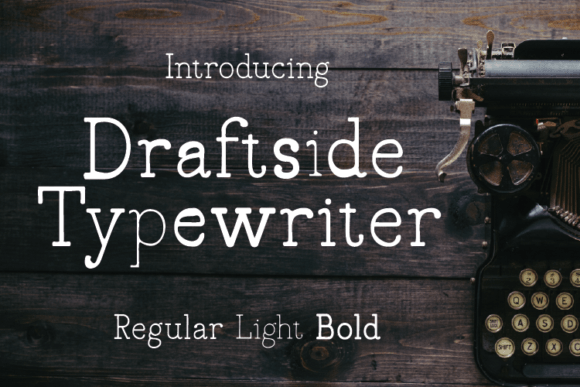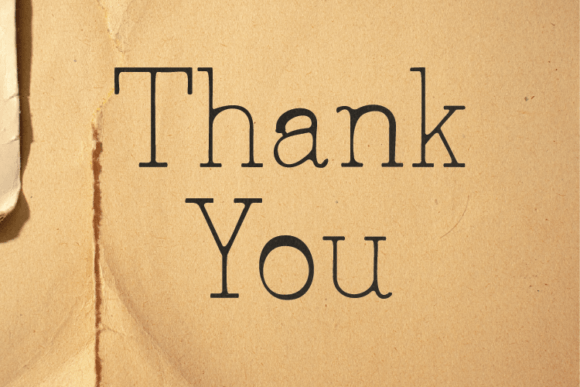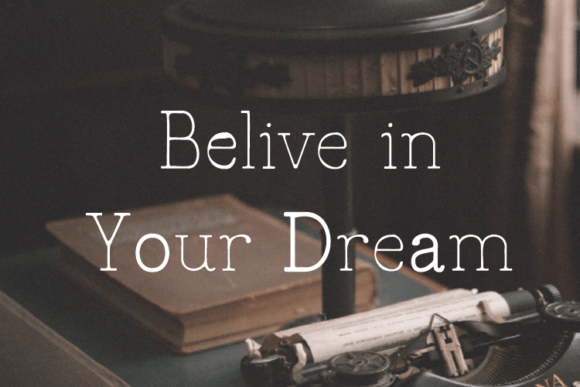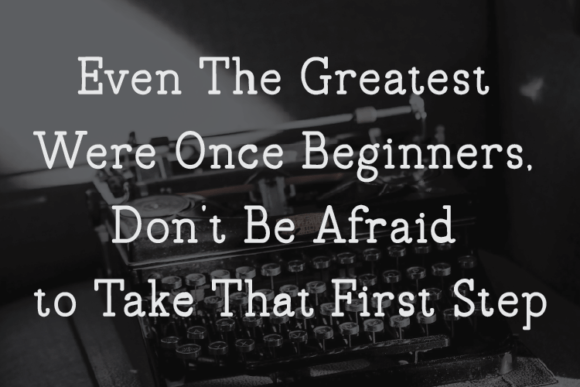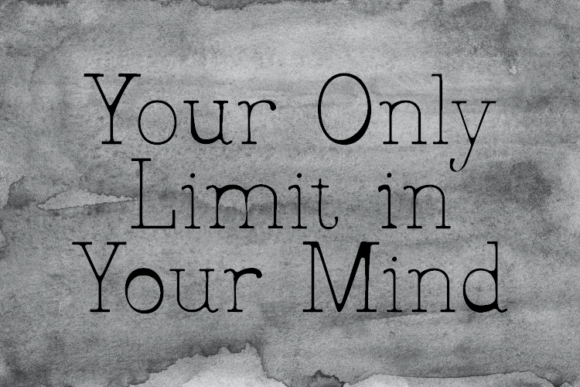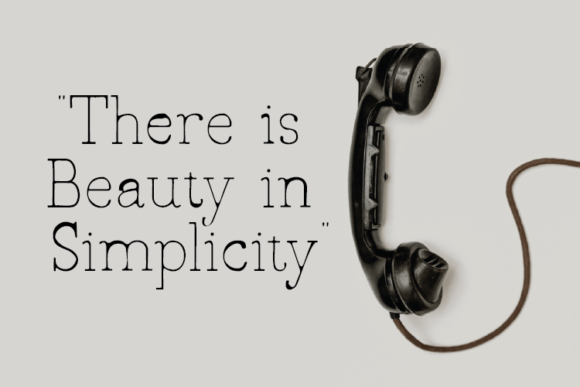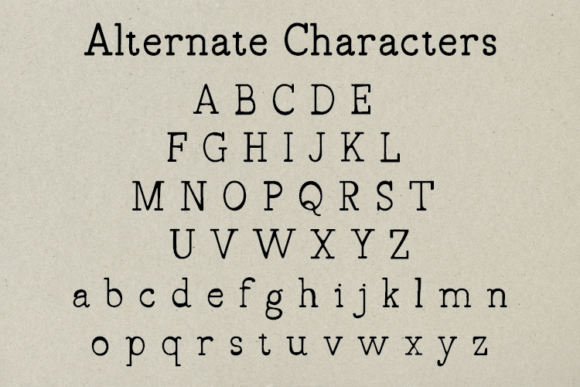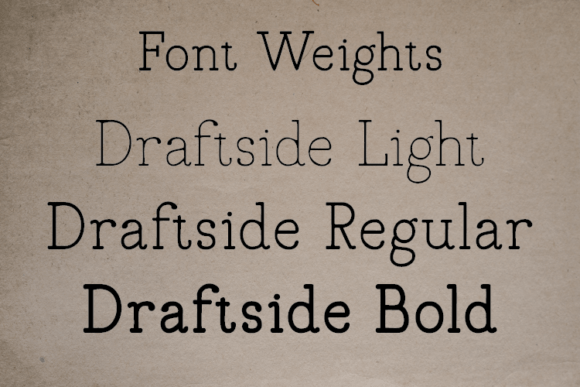
Draftside
Draftside: A Vintage Typewriter-Style Serif Font
Draftside is a vintage-inspired serif font featuring typewriter-style characteristics. This PUA-encoded typeface provides easy access to all glyphs and alternates, making it perfect for various creative applications.
Key Features of Draftside
• Vintage Design: Offers typewriter-inspired letterforms[5].
• PUA Encoded: Provides easy access to all glyphs and alternates.
• Retro Style: Features classic typewriter characteristics.
• Versatile Appeal: Enhances various creative projects.
When using Draftside in your designs, keep these tips in mind:
• Try it for headlines to showcase its vintage style.
• Use its typewriter character for retro projects.
• Take advantage of PUA encoding for easy access to special characters.
• Let its versatility enhance creative applications.
To sum up, Draftside is an excellent choice for designers seeking a vintage typewriter-style serif font. Whether you’re creating retro-inspired designs or looking to add a classic touch to your projects, Draftside offers the perfect blend of vintage charm and modern functionality.
Furthermore, Draftside’s distinctive design allows it to shine in contexts where both nostalgia and clarity are key. The font can elevate your projects with its typewriter-inspired style while maintaining easy access to all its special characters through PUA encoding[5].
In conclusion, Draftside truly captures the essence of vintage design in serif typography. For those wanting to add a touch of typewriter authenticity to their work, Draftside can enhance any design with its distinctive style. Ultimately, it’s perfect for designers aiming to make a classic, nostalgic impact across creative projects.